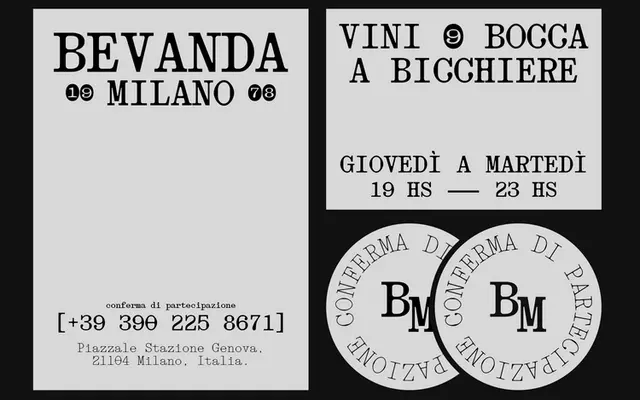
403 Obrinda
A slab-serif monospaced typeface drawing on typewriter heritage, available in five weights with matching slanted variants and variable font technology.
Built on a fixed-width grid with confident serifs and balanced proportions, 403 Obrinda takes its cues from the mechanical clarity of typewriter type while keeping its forms clean enough for screen and editorial use. The family spans five weights from Light to Black, each with a slanted companion, and ships as a variable font covering 602 glyphs including ligatures, alternates, mathematical symbols and currency signs. Suited to branding, data-heavy interfaces, dashboards and editorial layouts where a structured rhythm and legibility are both required.
A fixed-width typeface with prominent serifs and a typewriter heritage, placing it squarely in the monospaced slab serif subcategory rather than a purely utilitarian mono.